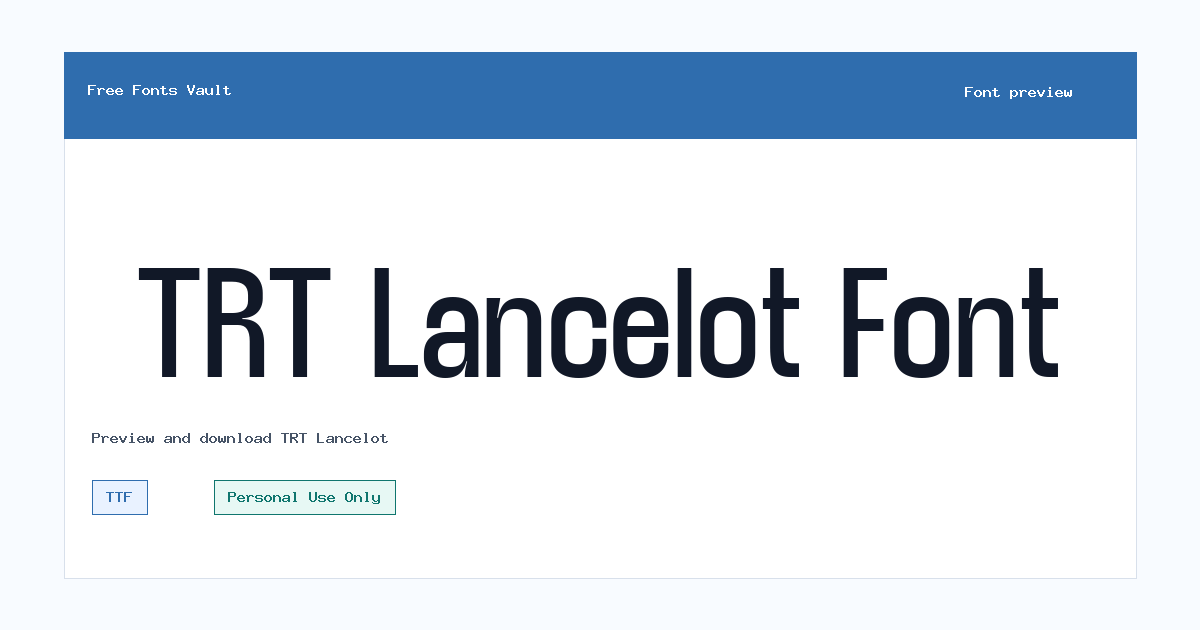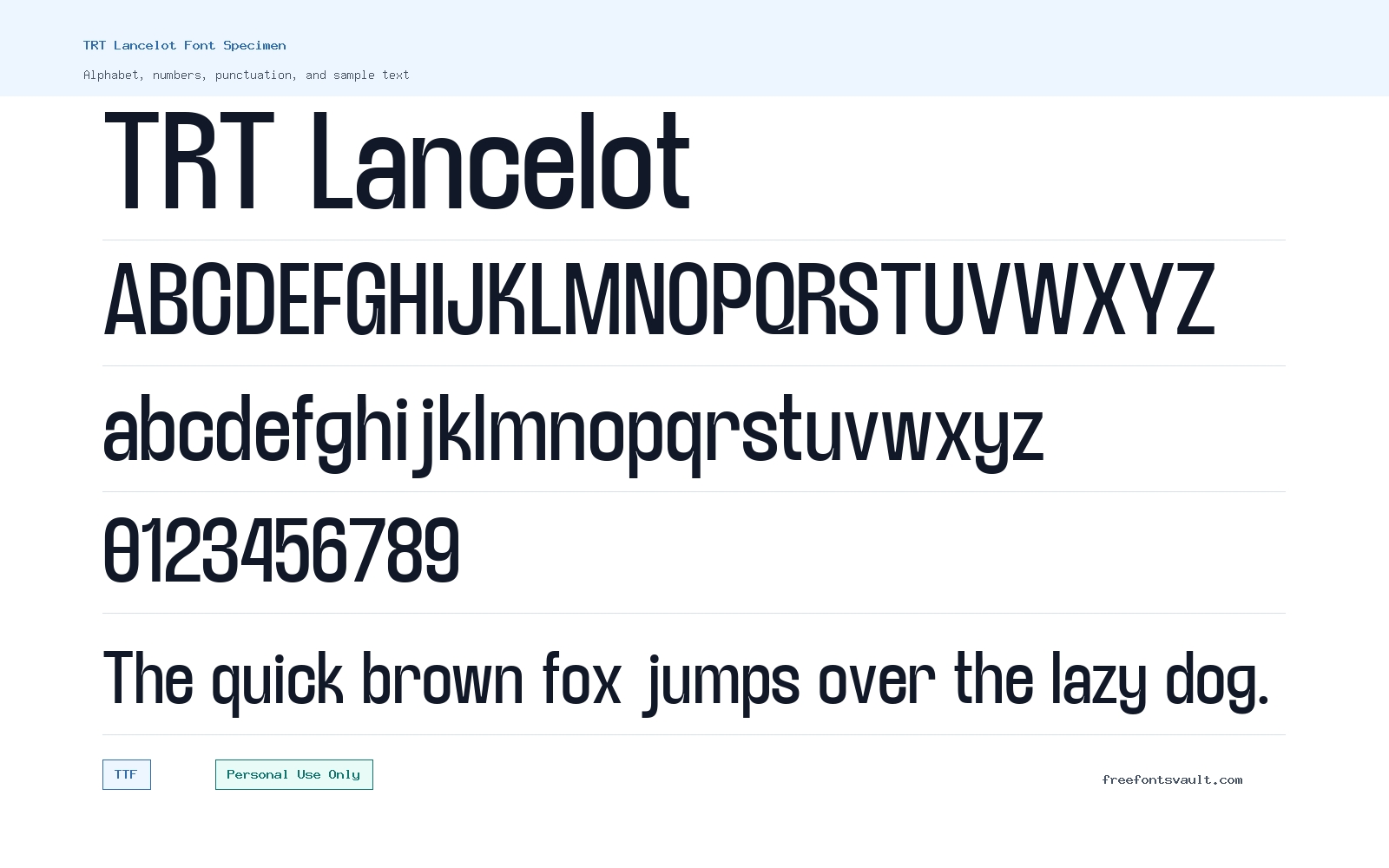
TRT Lancelot
TRT Lancelot Font
About TRT Lancelot Font
TRT Lancelot works well when you need a simple sans serif voice with enough weight range to build clear hierarchy. The family files include Thin, ExtraLight, Light, Regular, Medium, SemiBold, Bold, and ExtraBold TTF styles, giving you room to compare delicate headline settings with stronger title treatments. The lighter weights can feel open and restrained, while the heavier cuts are better for short, direct text where you want more presence without switching to a different typeface.
Use the preview box to test the words you actually plan to use, especially if your design depends on a logo-style lockup, a short heading, or a name. Try uppercase, lowercase, numbers, punctuation, and any accented characters you need before downloading. For longer reading text, start with Regular or Medium and check spacing at smaller sizes. Thin and ExtraLight are usually safer for large display settings, while Bold and ExtraBold can help with posters, thumbnails, social graphics, and section headers. If you pair TRT Lancelot with another typeface, keep the second font simple: a readable serif for articles or a neutral sans serif for body copy can help the page stay balanced.
• Sans serif TTF demo family with multiple named weights from Thin through ExtraBold
• Useful for testing headline hierarchy, short display text, and clean layout concepts
• Personal projects, mockups, posters, social graphics, and title experiments
• Previewing brand-style typography before choosing or licensing a font for wider use
Which weights can I test?
The demo family includes Thin, ExtraLight, Light, Regular, Medium, SemiBold, Bold, and ExtraBold styles.
What is TRT Lancelot best used for?
It is a good option to test for short headings, posters, social graphics, mockups, and personal design experiments where a clean sans serif style is useful.
Should I use TRT Lancelot for long paragraphs?
Test it carefully first. Regular or Medium will usually be more comfortable than very light or very bold weights for smaller body text.